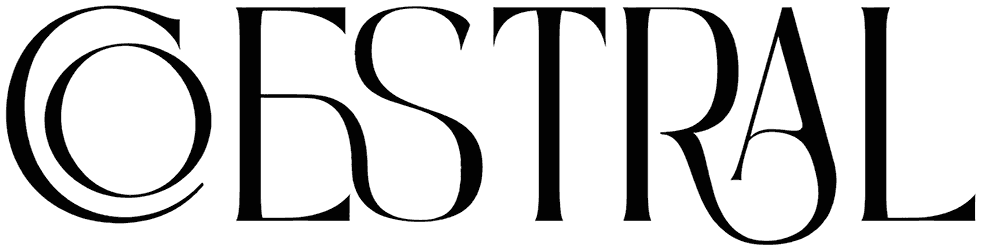
Coestral Font
Coestral font has that sharp serif elegance that makes a headline feel composed, tasteful, and slightly dramatic in the right way. Its refined letter shapes carry a classic editorial mood, but there’s still enough modern crispness to keep the design from looking like it belongs only in an old book. You get sophistication without losing freshness, which is a very useful balance.
Luxury menus, fashion lookbooks, perfume labels, wedding cards, boutique logos, gallery posters, and magazine titles can all wear this ligature font beautifully. Try wide spacing, muted colors, textured paper, or one clean photograph, and the layout starts feeling quietly expensive.